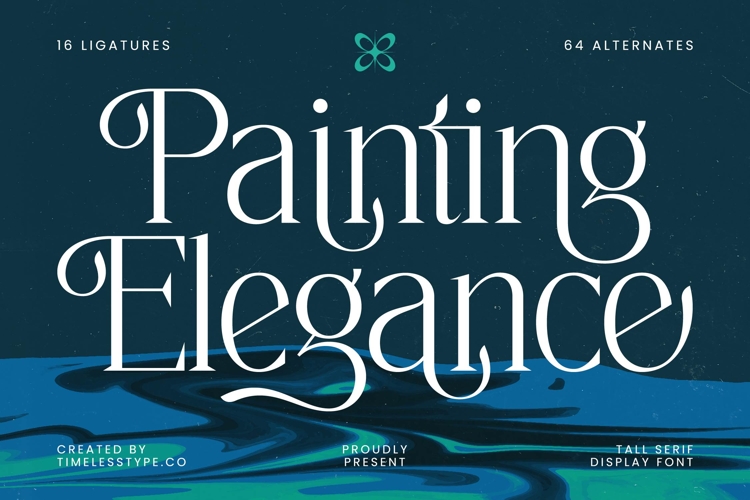
Painting Elegance - Tall Serif Display Font
Elevate your designs with Font Painting Elegance - Tall Serif Display Font Serif Display, a truly captivating serif display font crafted to make an immediate, memorable impression. This typeface features a stunning high-contrast design with delicate, graceful tall serifs and flowing strokes that exude unparalleled elegance, perfect for projects demanding a sophisticated and luxurious touch.
Unlock boundless creative potential with its rich feature set. With its extensive multilingual support, Font Painting Elegance - Tall Serif Display Font Serif Display adapts seamlessly across global markets, making it incredibly versatile for international projects. Explore the wealth of its 16 ligatures and 64 alternates, offering designers exceptional customization and the ability to craft truly unique, expressive typographic compositions.
Designed to make a significant impact, Font Painting Elegance - Tall Serif Display Font Serif Display is the perfect choice for projects demanding refined luxury and distinctive flair. Its ideal applications include premium luxury branding, elegant high-end product packaging, sophisticated editorial design, fashion magazine headlines, bespoke wedding invitations, and any visual identity seeking a truly premium appeal.
Make an unforgettable statement by choosing Font Painting Elegance - Tall Serif Display Font Serif Display. This essential display font transcends fleeting trends, offering timeless sophistication and distinctive charm. Invest in a typeface that will elevate your brand presence and allow you to craft compelling visuals that consistently captivate audiences and reinforce a commitment to exceptional quality.